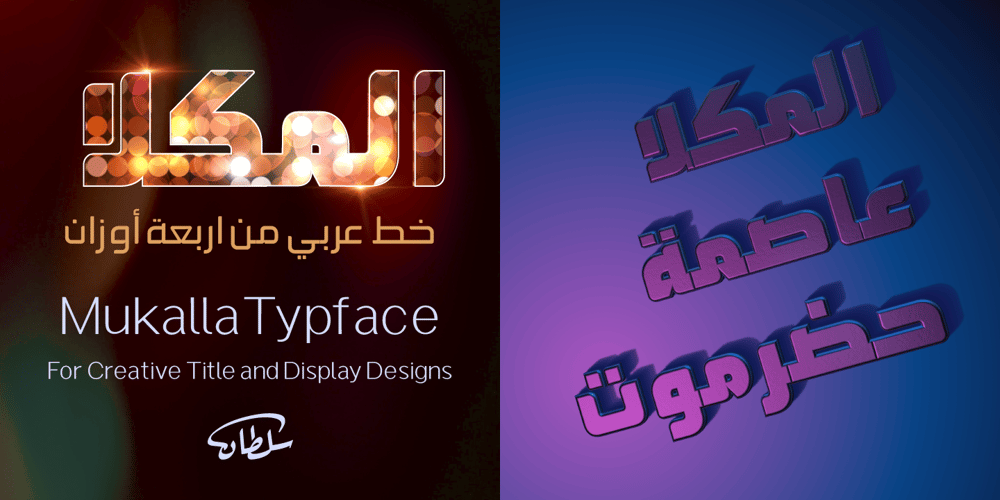
SF Mukalla Font Family was designed by Sultan Maqtari and published by Sultan Fonts. SF Mukalla contains 4 styles and family package options. Mukalla’s Key Features:Four weights to suit all your heading and display needs.Modern and elegant design that complements a wide range of aesthetics.Clear and legible typeface that ensures your headlines stand out.Compatible with all major design systems and software.Easy to use and optimized for efficient workflow.Ideal for:Main headlines, Subheadings, Presentations, Posters, Packaging, Digital designs and Print materialsMukalla: The Creative Font That Elevates Your DesignsGet Mukalla today and take your designs to the next level!